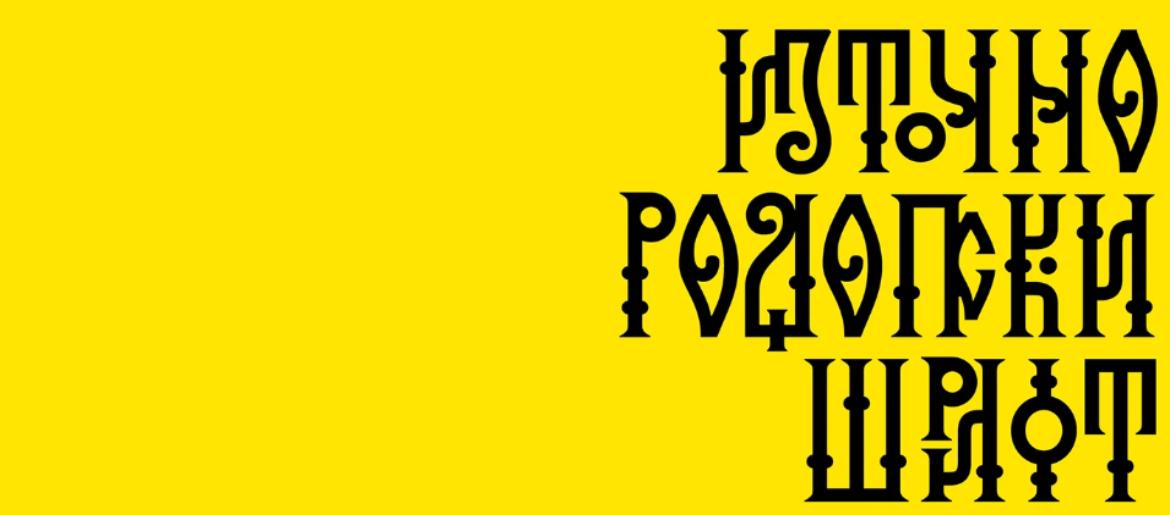
Eastern Rhodopes Font
Eastern Rhodopes Font is a decorative display typeface inspired by lettering from Ivan Balkansky’s book “Eastern Rhodope Fortresses.” Drawing from Slavic vyaz traditions, it blends historical character with contemporary design. Supporting Cyrillic, Latin, and Glagolitic scripts, rich ligatures connect letters into expressive forms echoing intertwined cultures, eras, and stone landscapes.
➤ Font Name: Eastern Rhodopes
➤ Designer: Dmitry Chekanov
➤ Style: Decorative